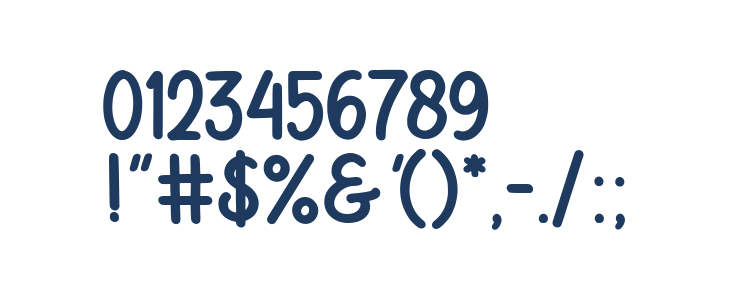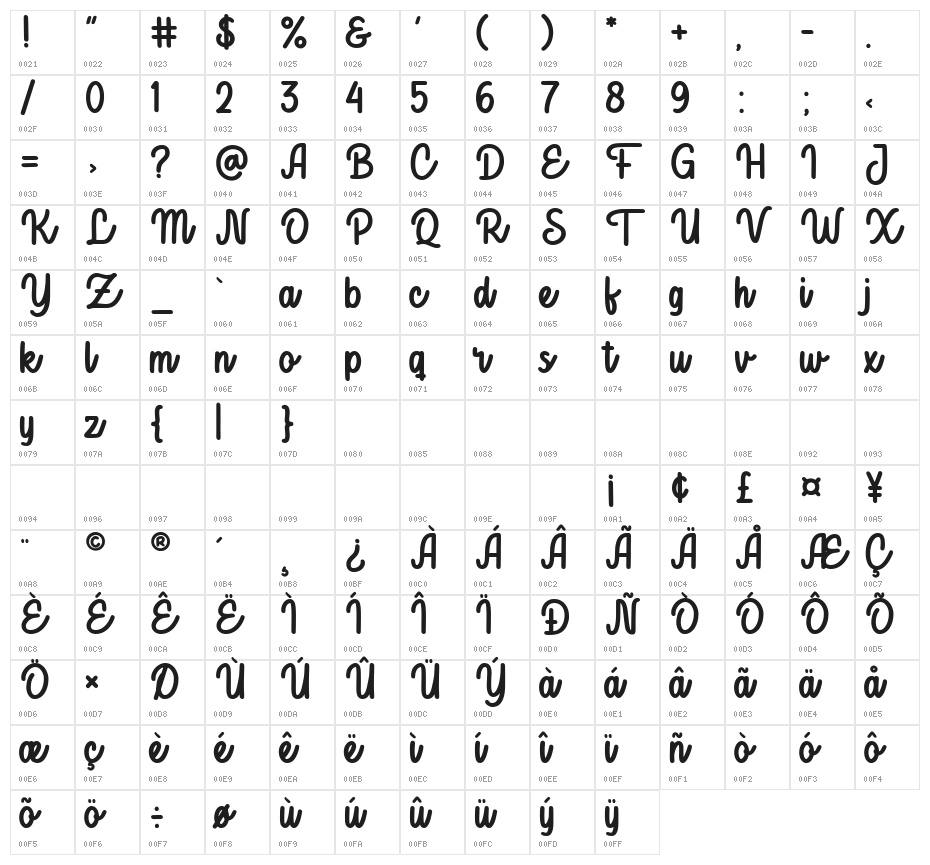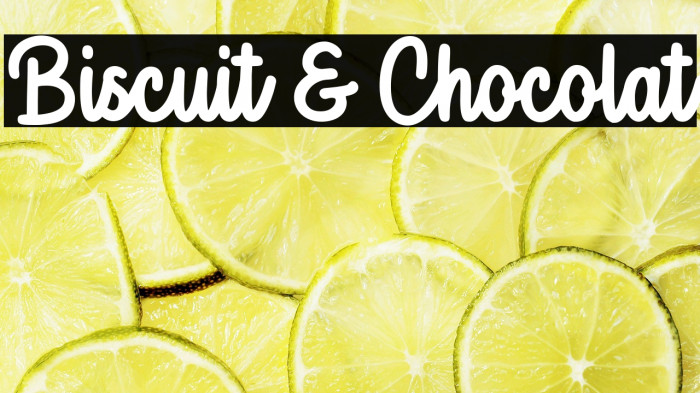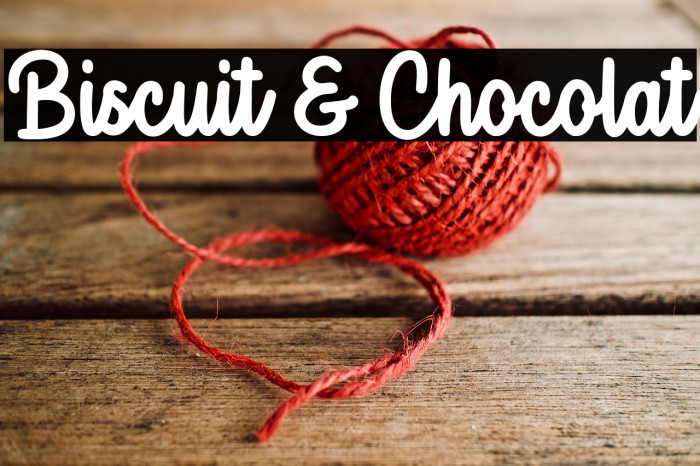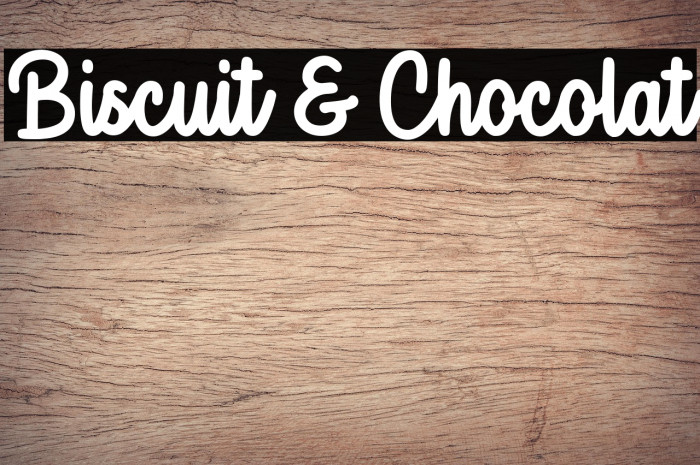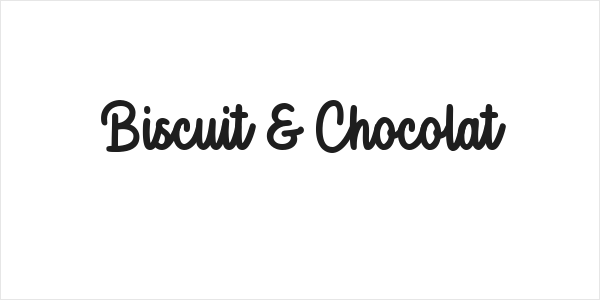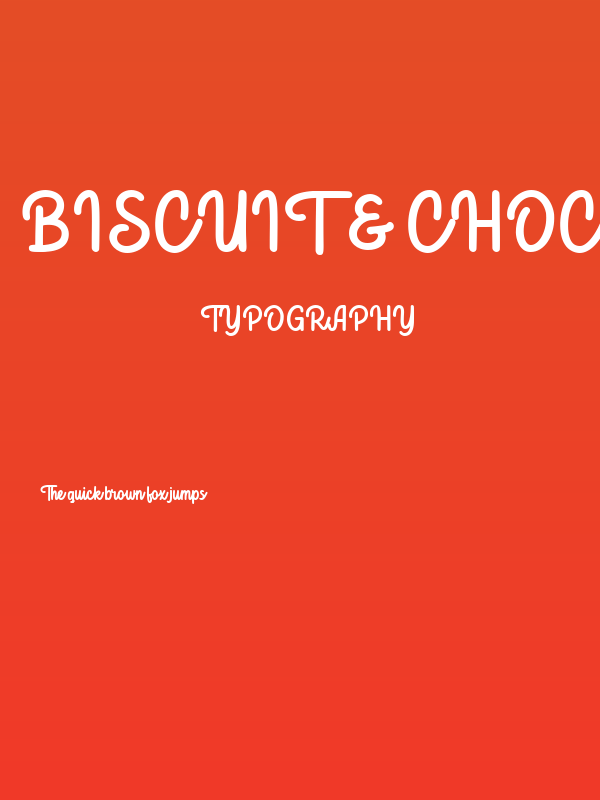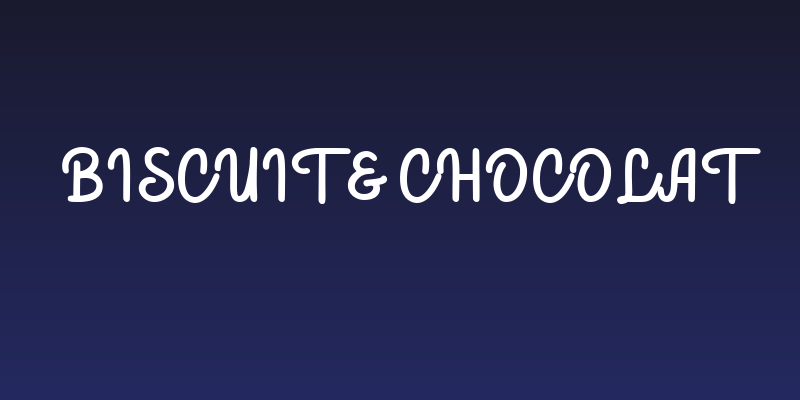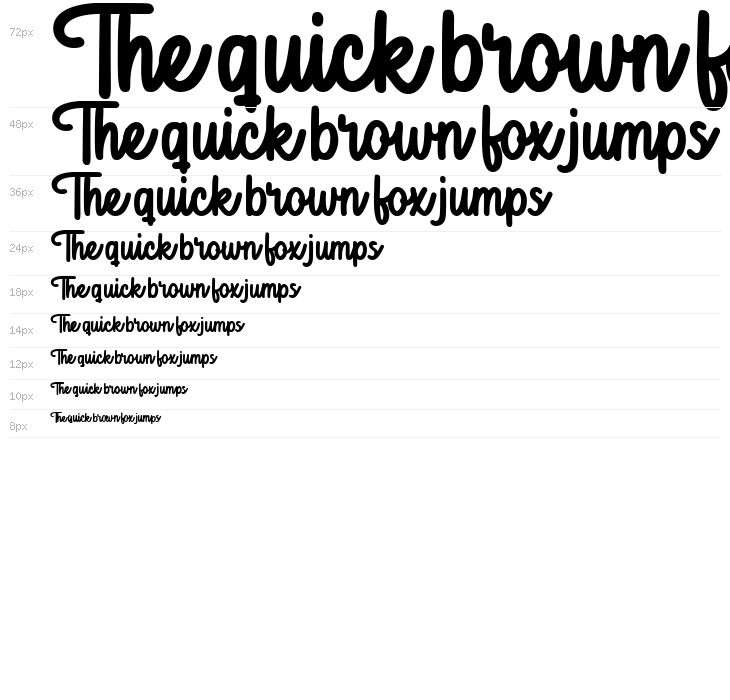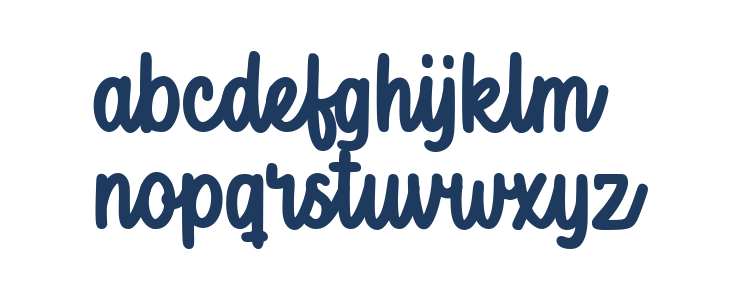
Biscuit & Chocolat Font
This playful and bold script font features a handwritten style with a smooth, flowing appearance. The uppercase letters are slightly more restrained, maintaining a consistent height, while the lowercase letters exhibit a charming bounce and rounded forms. The numerals are clear and easy to read, matching the overall style of the alphabet. Special characters are well-integrated, maintaining the font's cohesive look. The font's thick strokes and rounded edges give it a friendly and approachable feel, making it suitable for a variety of creative projects.
Overall StylePlayful, Friendly
Proposed ProjectsIdeal for children's book covers, playful branding, greeting cards, and social media graphics.